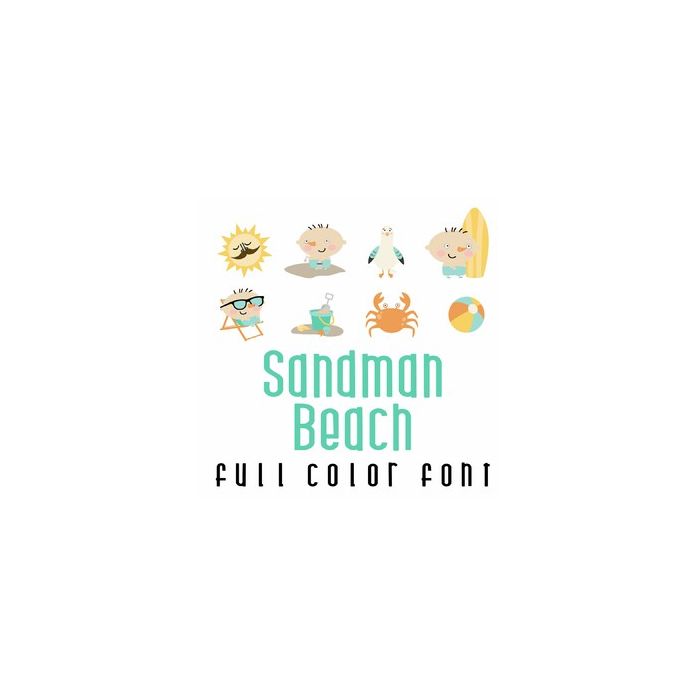
This adorable full-color doodlebat font features 26 beachy images with our Sandman. Perfect for cards, crafts, gifts, decor, planner stickers, scrapbook pages and more!